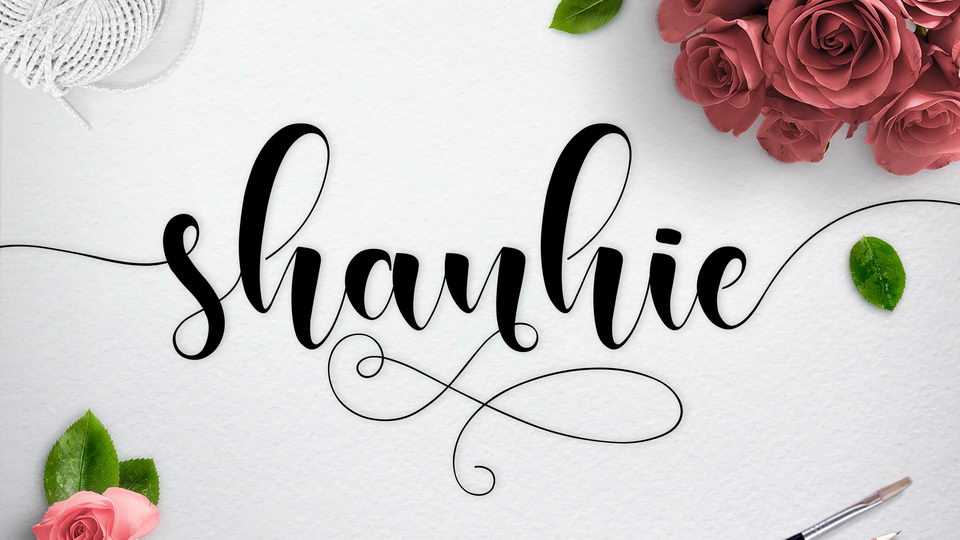
Shanhie Script Font › Fontesk – Download Grátis
Download Shanhie font, a modern script with a handmade calligraphy style, decorative characters and a dancing baseline. Shanhie is beautiful on invitations, greeting cards, branding, business cards, quotes, posters, and more !